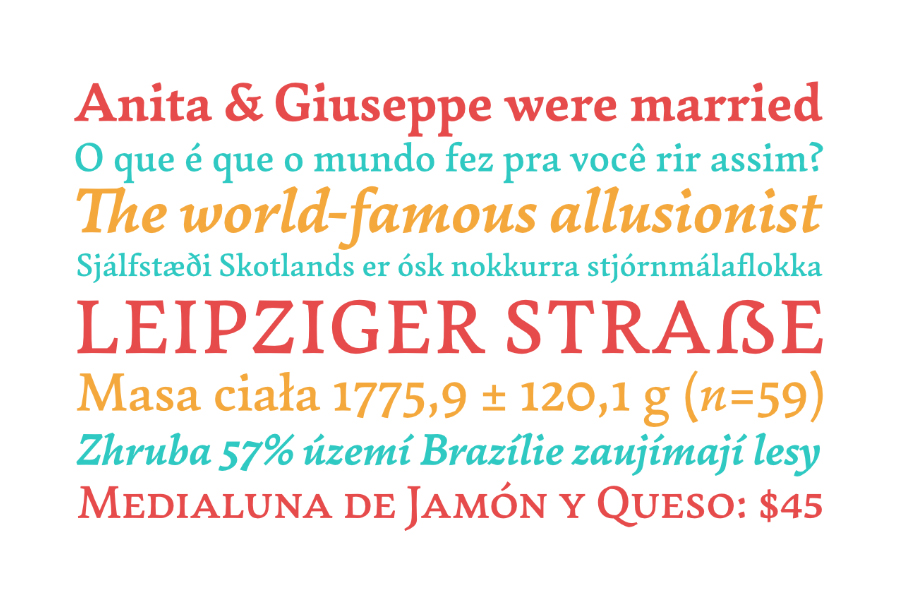
Garibaldi Font
Garibaldi is a text typeface based on humanist calligraphy. It has an organic look and feel, while preserving the traditional construction of roman typography. It all started with a desire to learn more about the origin of the strokes on humanist typefaces. To accomplish that, Garibaldi features a 20° axis, medium contrast based on translation and expansion, asymmetric serifs, and terminals related to the broad nib stroke.